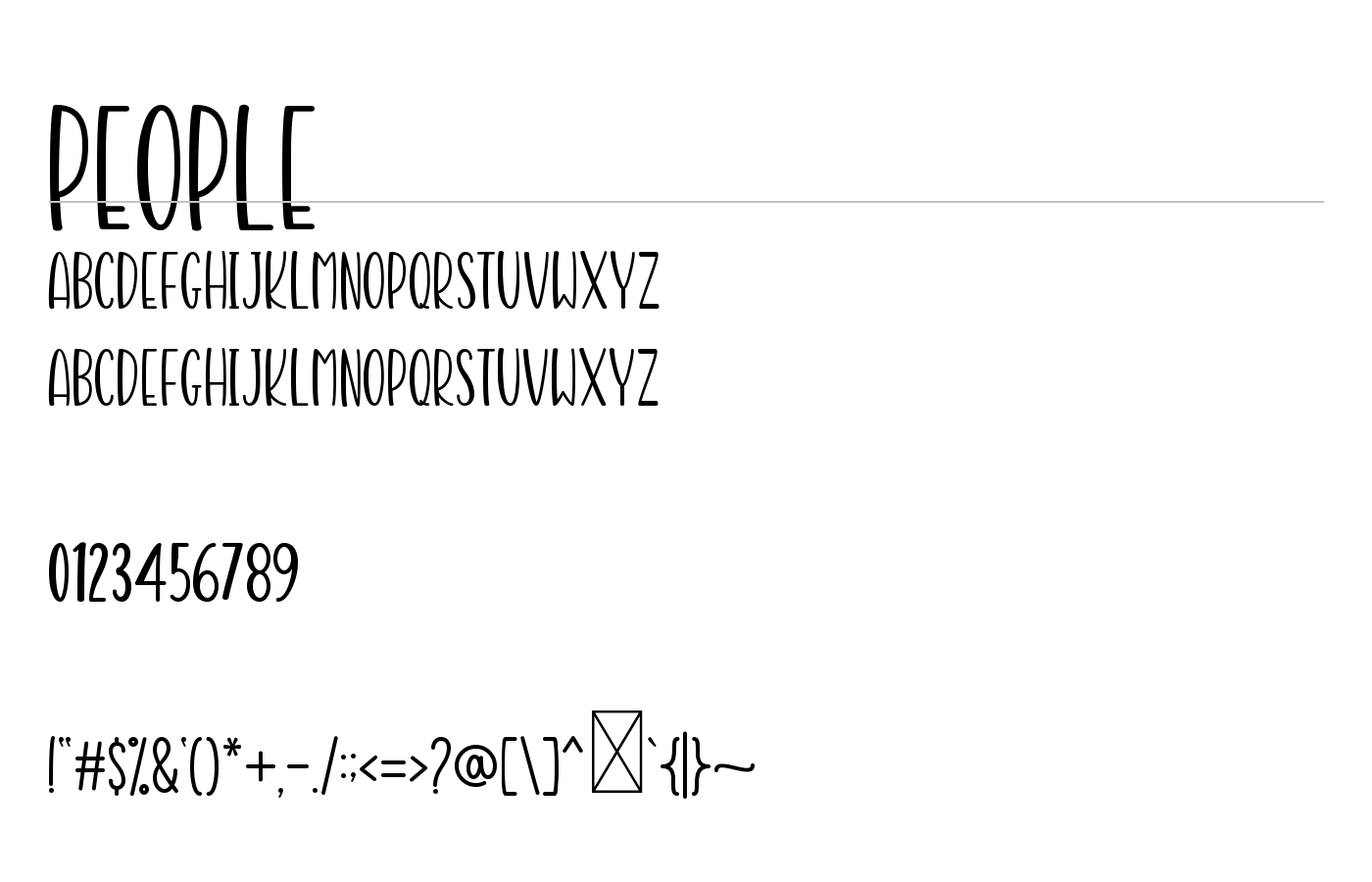
People Font is a tall, narrow sans serif typeface with a playful, handwritten feel. Its slightly irregular, organic letterforms and consistent thin strokes make it ideal for friendly, informal designs that need a unique, approachable touch. This font works well for creative branding, casual headlines, and personal projects where a warm and distinctive style is desired.
People Font
About People Font